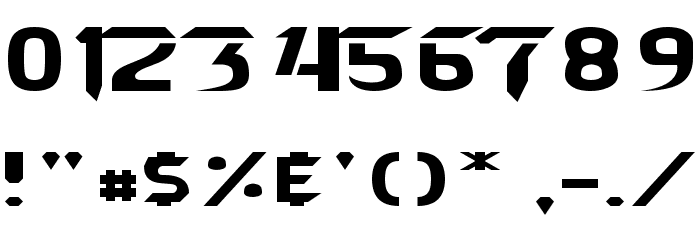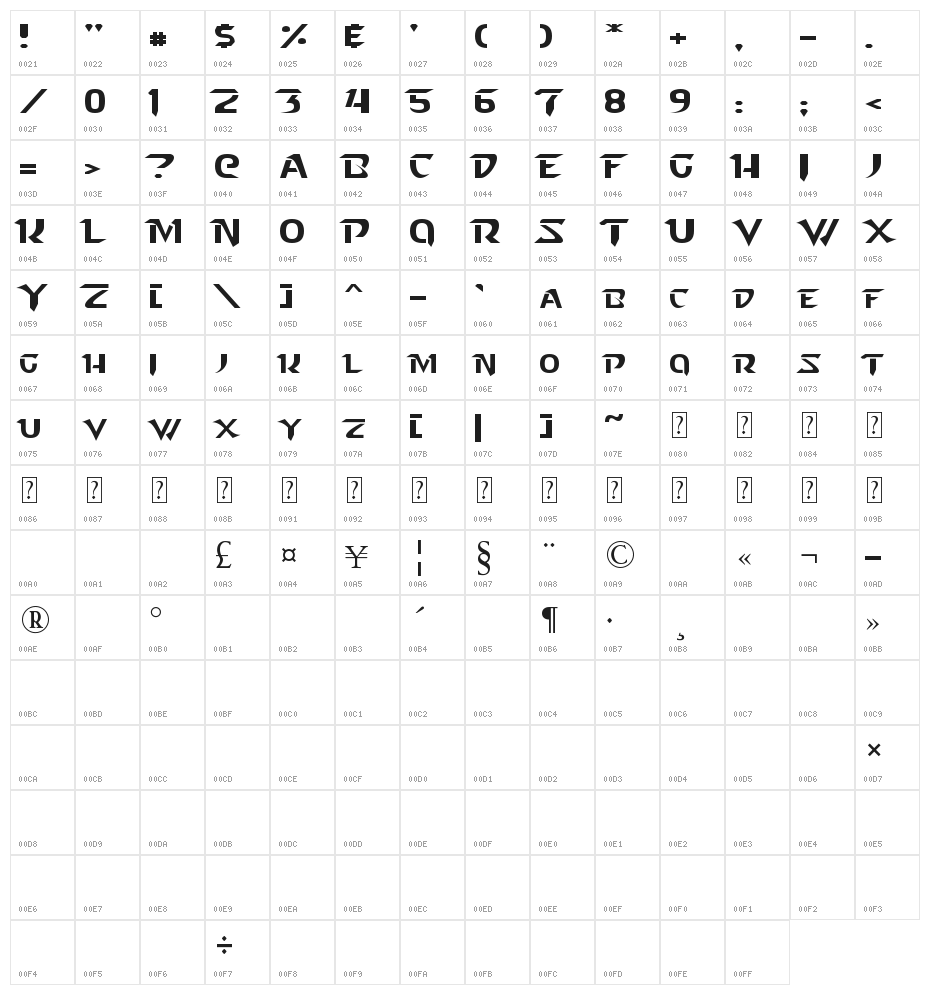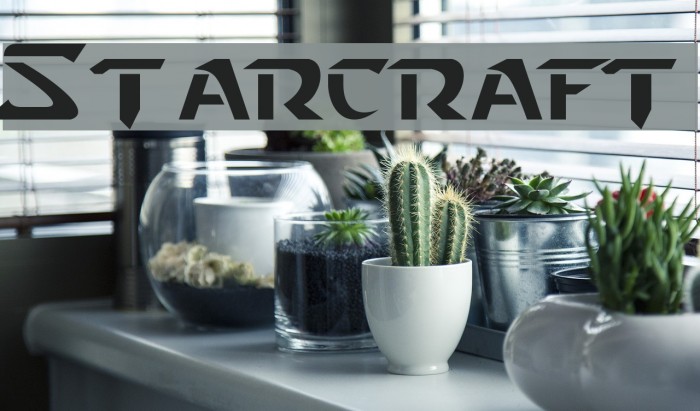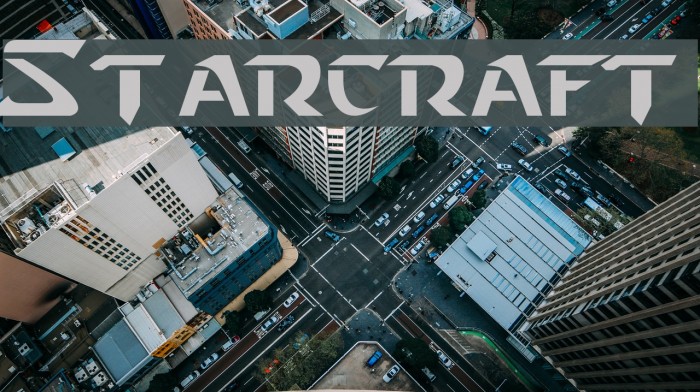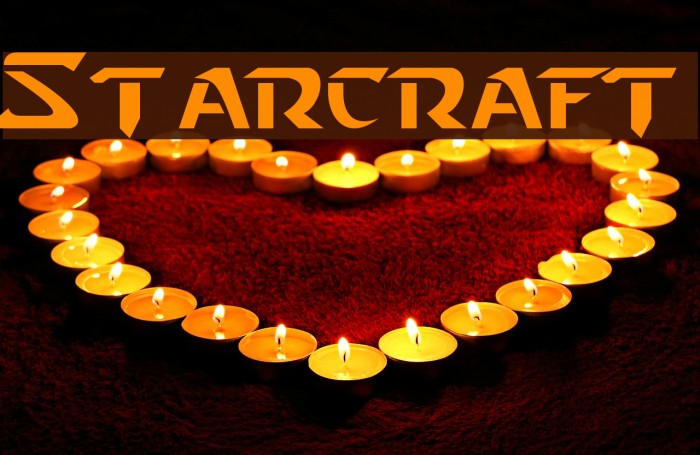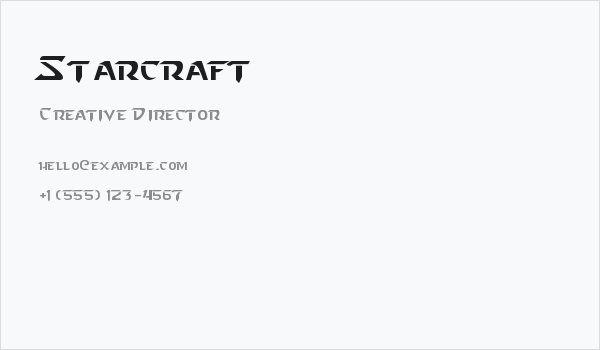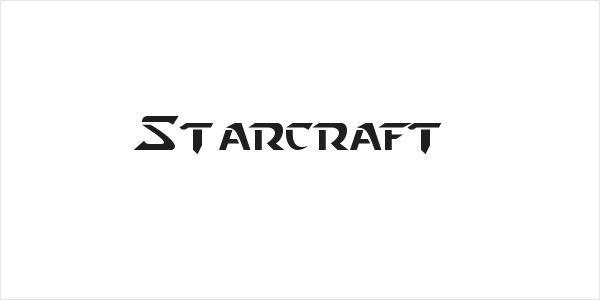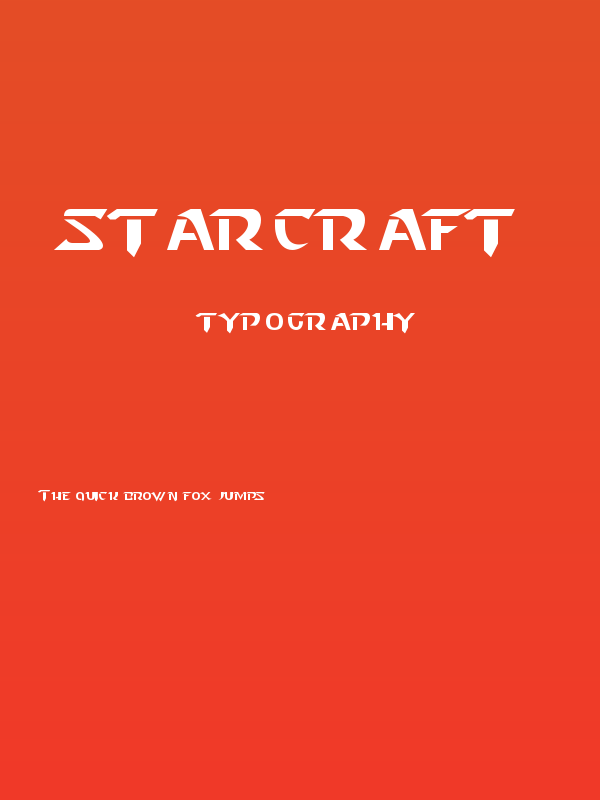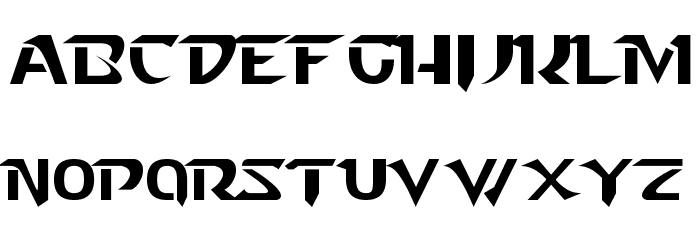
Starcraft Font
Starcraft Description
This font features a futuristic and angular design, characterized by sharp edges and geometric shapes. The uppercase and lowercase letters maintain a consistent style, with bold, block-like forms that convey a sense of strength and modernity. The numerals and special characters follow the same aesthetic, ensuring uniformity across all glyphs. The font's unique style makes it stand out, with a distinct sci-fi or tech-inspired appearance that is both eye-catching and memorable.
| Proposed Projects | Ideal for video game titles, tech logos, sci-fi movie posters, and futuristic branding. |